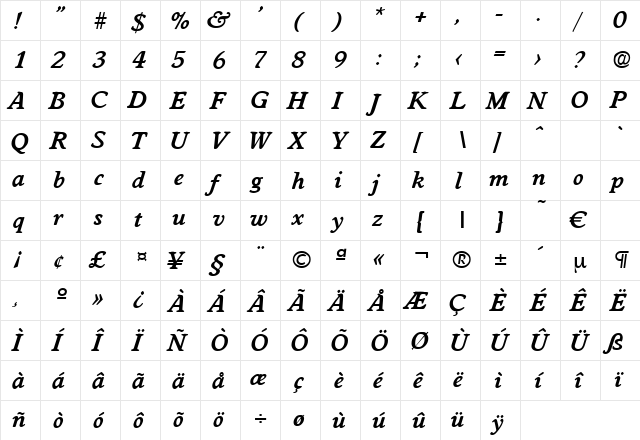
Worchester-DemiBoldIta Regular
Design Context for Worchester-DemiBoldIta Typeface
Worchester-DemiBoldIta offers clean, dependable letterforms without strong stylistic allegiance, making it a practical choice for designers who need flexibility. Its bold stroke weight gives it real presence on the page.
Pro Tip: Use Worchester-DemiBoldIta in both headline and body roles to test its range before committing to a single application.